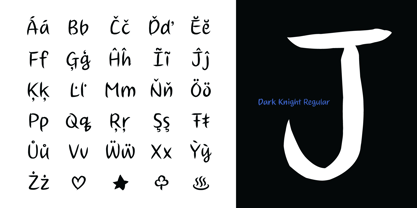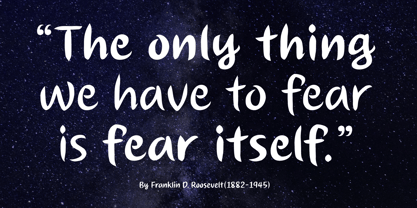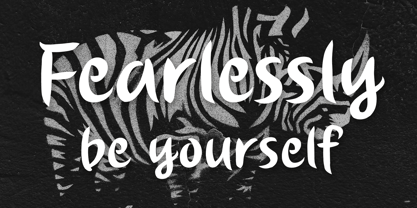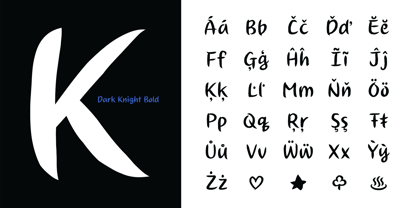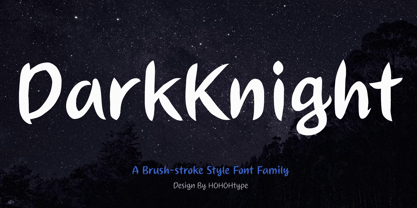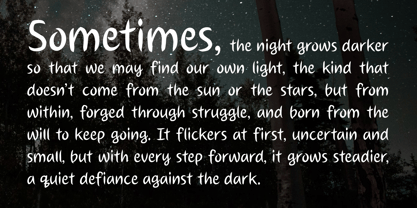
Dark Knight
by HOHOHtype
The Dark Knight Font Family was designed by Saebom Lee and published by HOHOHtype. Dark Knight contains 2 styles and family package options. More about this family
"DarkKnight" is a brush-drawn font. This font family has two weights. This font family features a calligraphic style, giving it a sleek and dynamic feel. 1. Handwritten Style with Emotional Structure This font is based on a natural handwritten style, yet it maintains a well-balanced and clean structure. The strokes flow smoothly and organically, while each letter's form is clearly defined, achieving both legibility and aesthetic charm. 2. Soft Strokes with Dynamic Contrast The variation in stroke thickness adds a rhythmic feel to the letters. Especially at the beginnings and ends of strokes, there's a delicate tapering or subtle sharpness that reflects fine pen pressure control, giving the font a warm and lively impression. 3. Distinctive Stroke Endings The stroke terminals are not overly blunt or rounded — instead, they are slightly angled or tapered, adding character to each letter. This detail helps the letters stand out clearly, making them especially suitable for display and headline use. 4. Emotionally Expressive Display Font The overall style is soft yet defined, emotional yet crisp. Unlike casual handwriting, this font is a refined emotional script, ideal for situations where typography needs to convey a sense of feeling or story.
Designers: Saebom Lee
Foundry: HOHOHtype
Type Foundry in South Korea, by designer Saebom Lee. HOHOHtype designs professional and sophisticated multilingual typefaces in a variety of styles for print and digital use.HOHOHtype offers text and display fonts with a lot of OpenType functions supporting the following languages:Afrikaans Catalan Croatian Czech Esperanto Hungarian Latin Latvian Lithuanian Maltese Northern Sami Polish Serbian Slovak Slovene Sorbian Turkish Welsh (+ Belarusian Bulgarian Kazakh Kyrgyz Macedonian Montenegrin Russian Serbian Tajik (a dialect of Persian) Turkmen Ukrainian and Uzbek).